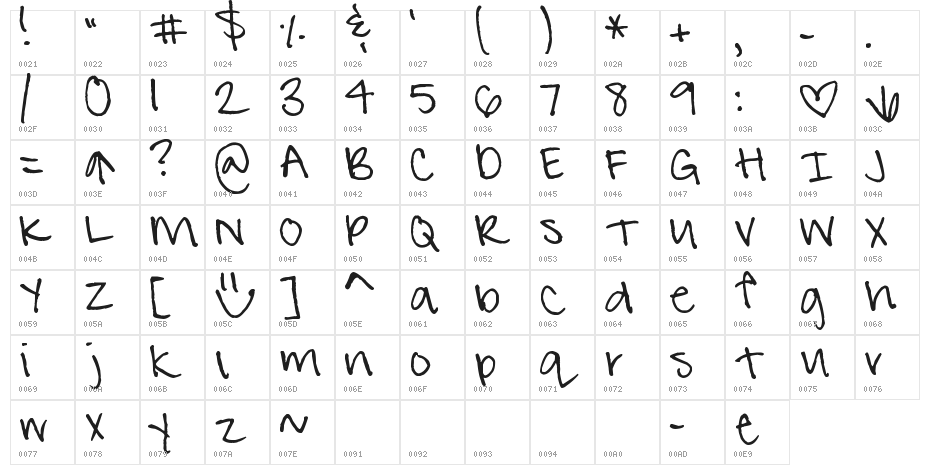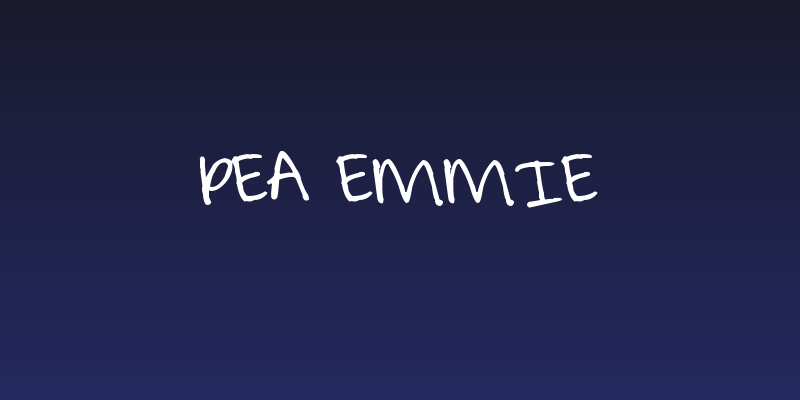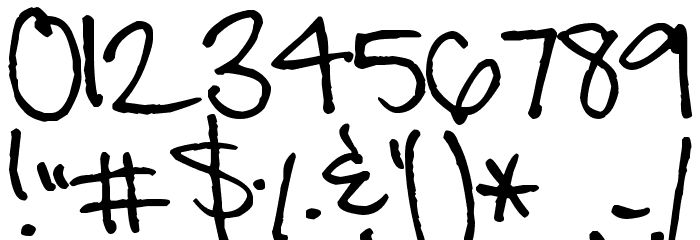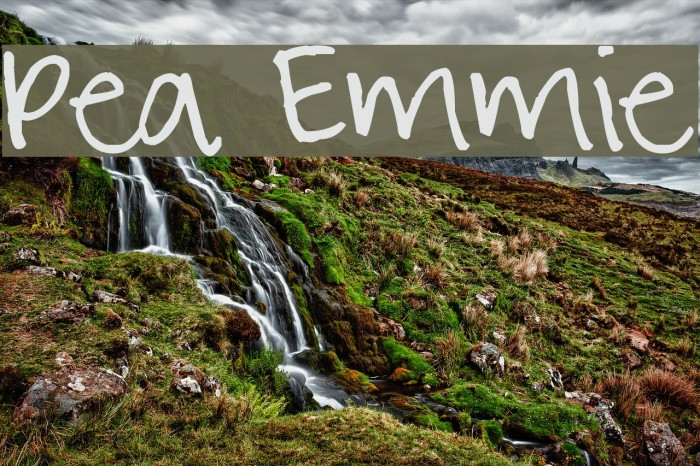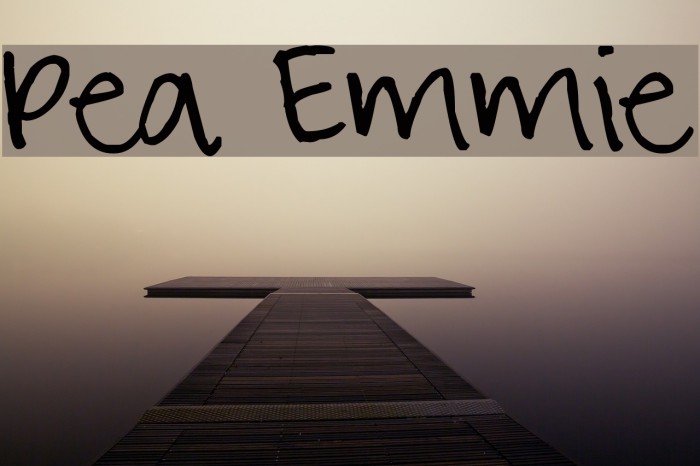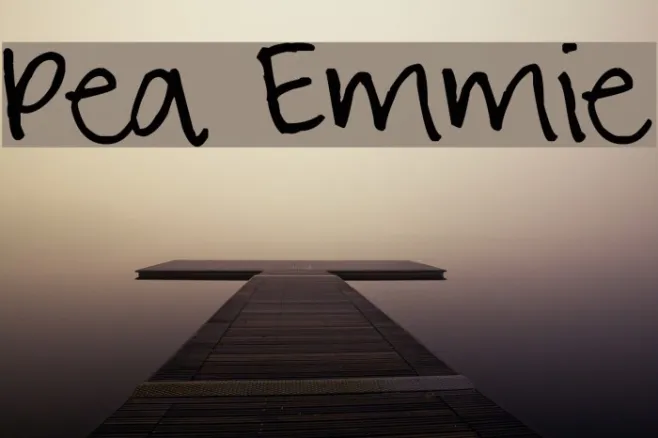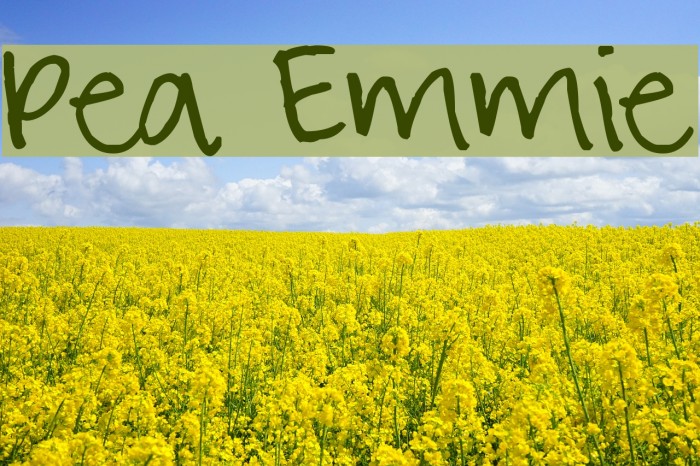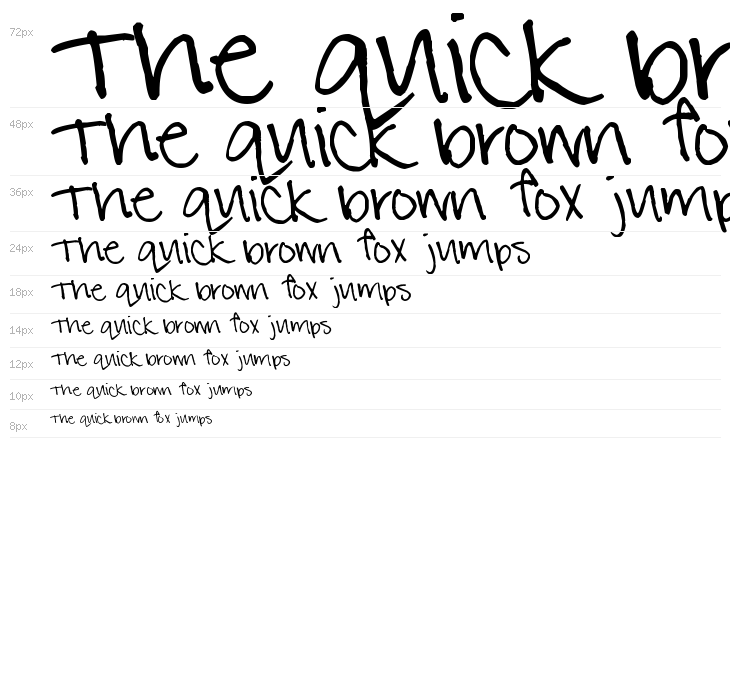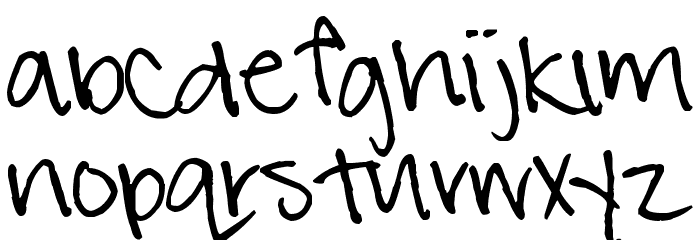
Pea Emmie Font
| Style général | Casual, Playful |
| Cas d'utilisation | Headlines, Informal text, Creative projects |
| Projets proposés | Ideal for personal invitations, greeting cards, children's books, and creative branding projects. |